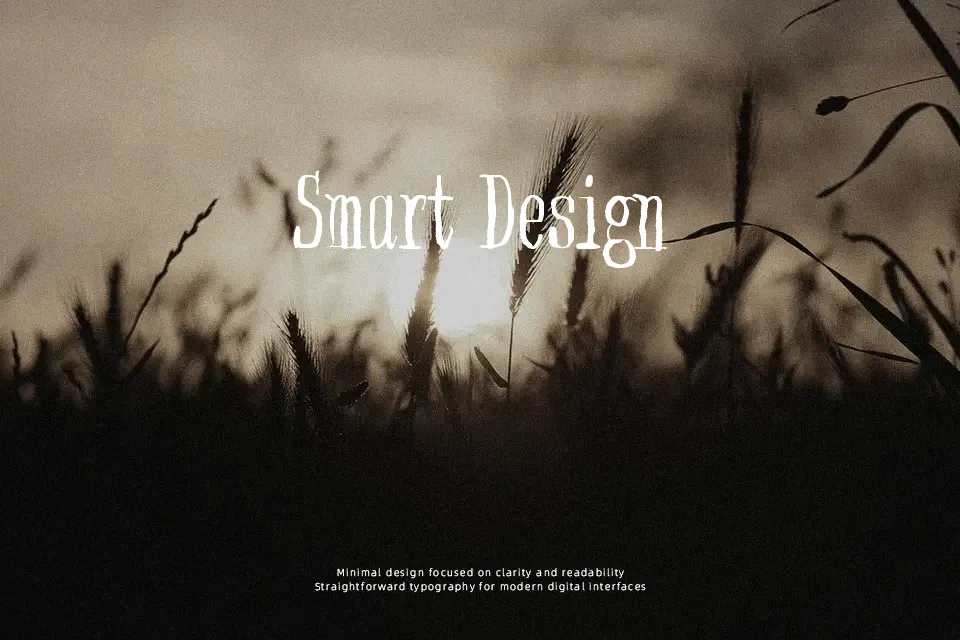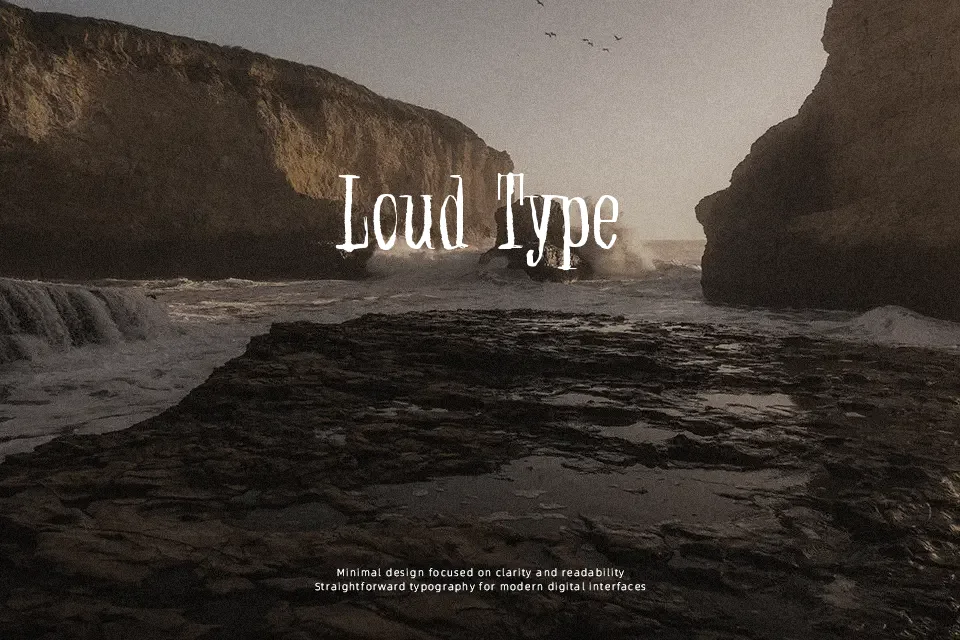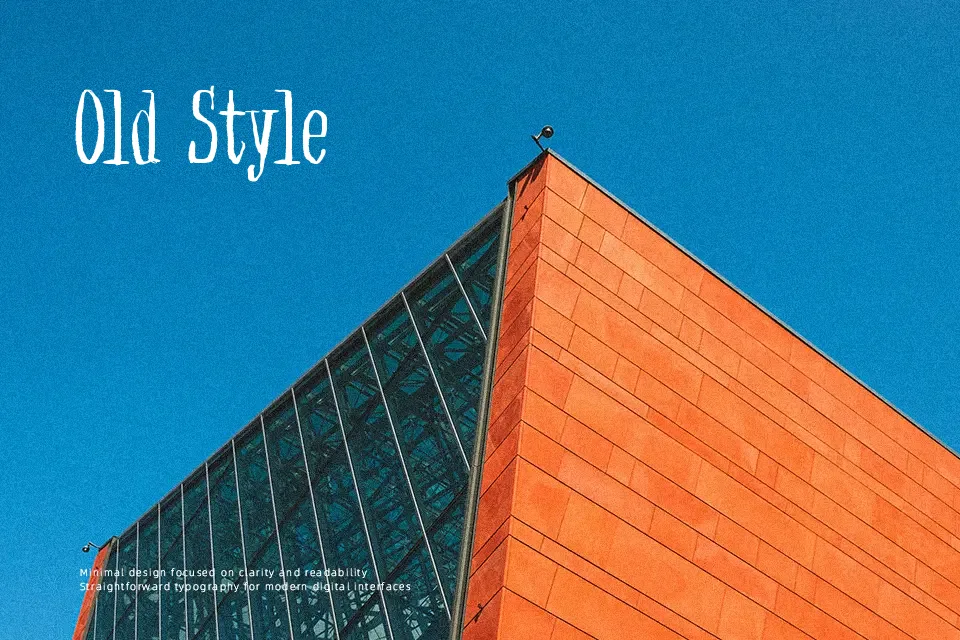
Non watercolor Font
Non watercolor uses uneven outlines, varied stroke edges, and unconventional letter shapes to create a loose display-oriented appearance. The characters have a hand-drawn rhythm rather than a uniform typographic structure, with proportions that shift noticeably across the alphabet. Spacing appears best suited to short, large-scale text, where the distinctive silhouettes remain visible. It can bring an artistic, rough character to music graphics, event posters, or expressive title treatments. The irregular construction gives headlines a strong presence, but it makes small text and extended reading less comfortable. It is most effective when used sparingly as a visual focal point.
Best For: music poster headlines,album artwork,event flyers,expressive apparel graphics
Not Ideal For: long paragraph text,small interface labels,corporate reports,technical manuals
Perfect for advertising, headline, and music, with a artistic and decorative style.